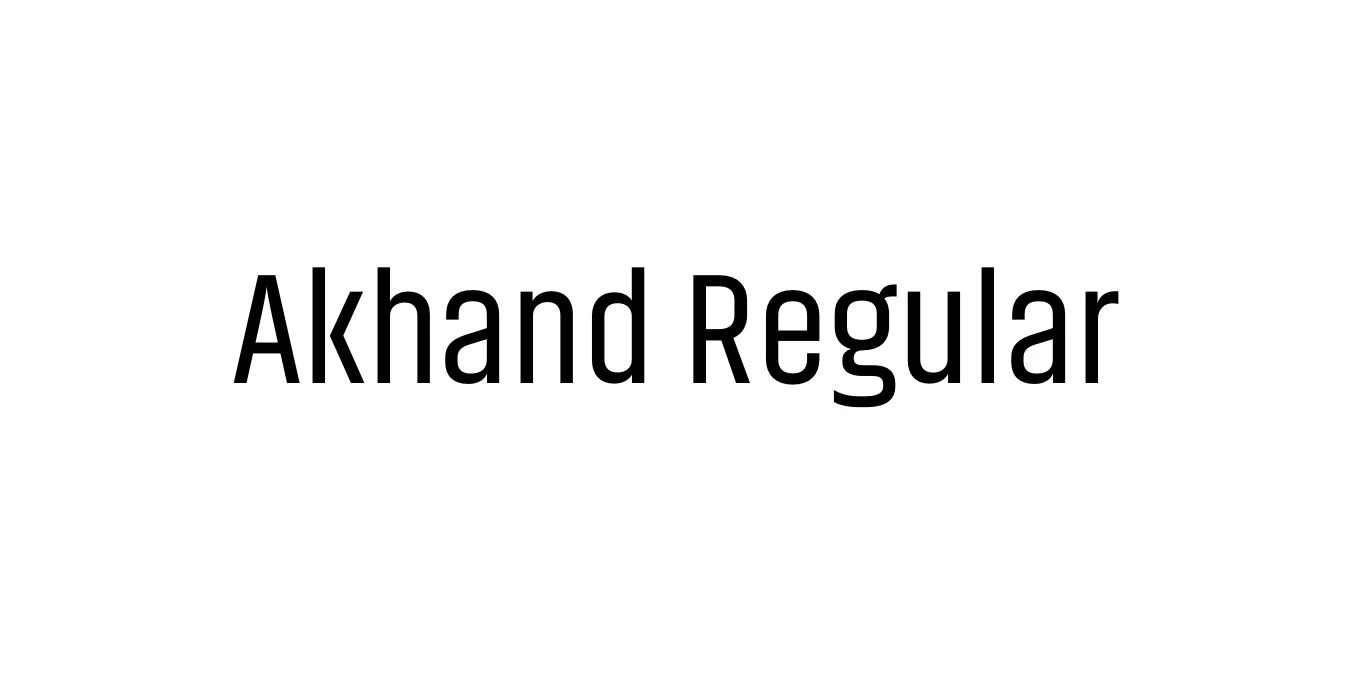
Akhand Regular
Designed by Satya Rajpurohit
Akhand Regular is a robust sans-serif typeface designed by Satya Rajpurohit and published by the Indian Type Foundry (ITF). It features a modular, condensed design with straight-sided letterforms, giving it a modern and architectural aesthetic. Originally conceived for high-impact news headlines and space-constrained layouts, the typeface excels in environments where clarity and authority are paramount.
The Akhand family is celebrated for its wide range of weights, but Akhand Regular remains one of its most versatile members. Its near-constant stroke width and open counters ensure exceptional legibility across both digital screens and print media. This makes it a preferred choice for corporate identities, UI/UX design, and professional branding projects that require a clean, neutral, yet sophisticated tone.
Akhand Regular Best Uses
Perfect for bold, space-efficient titles in news and magazine layouts.
Ideal for professional branding and minimalist business documents.
High legibility on mobile applications and website interfaces.
Excellent for high-impact posters, banners, and promotional graphics.